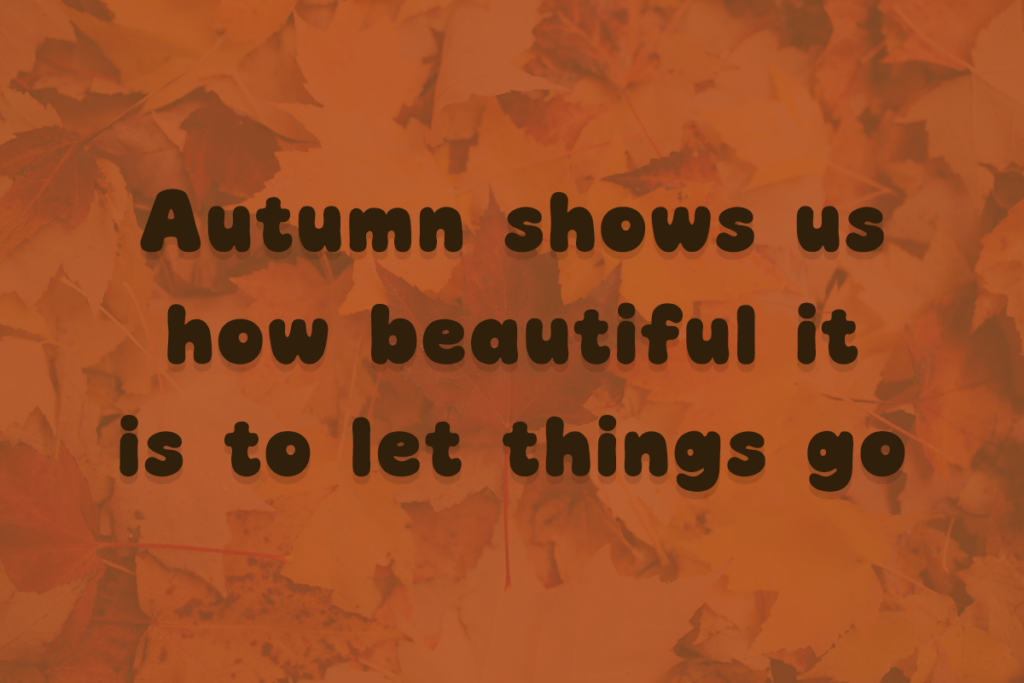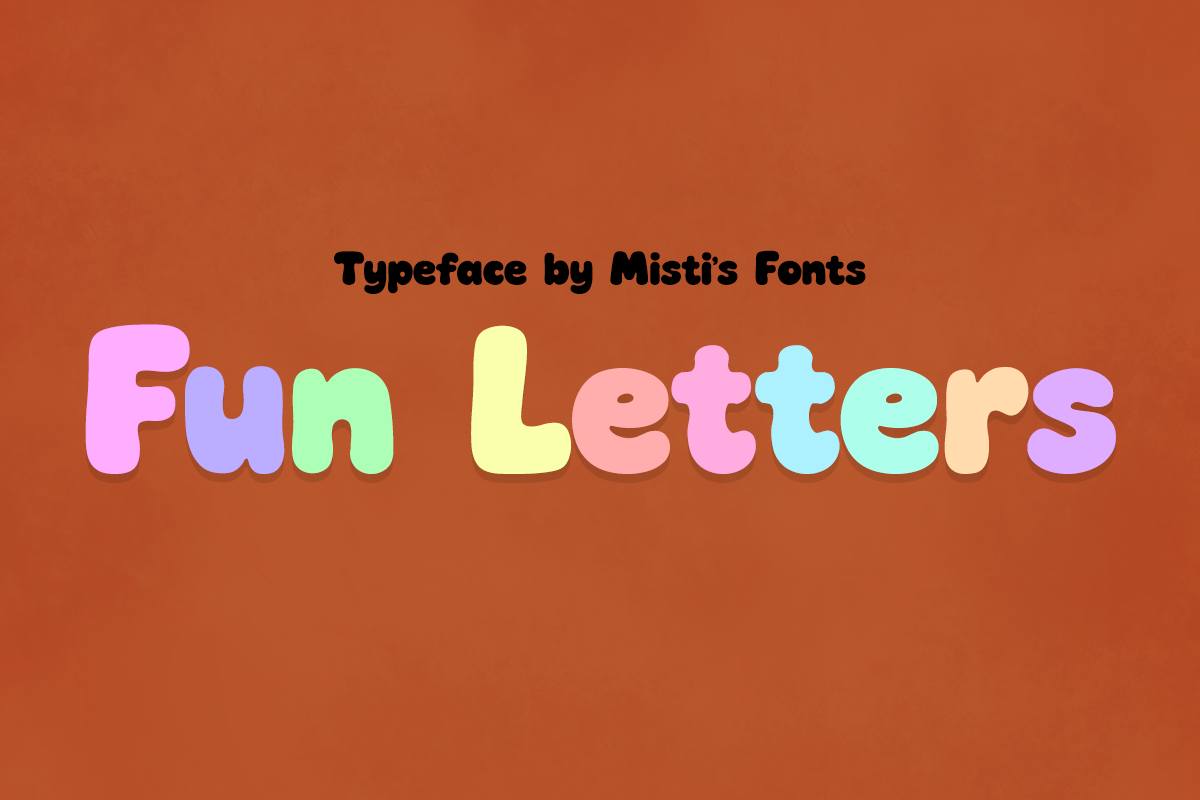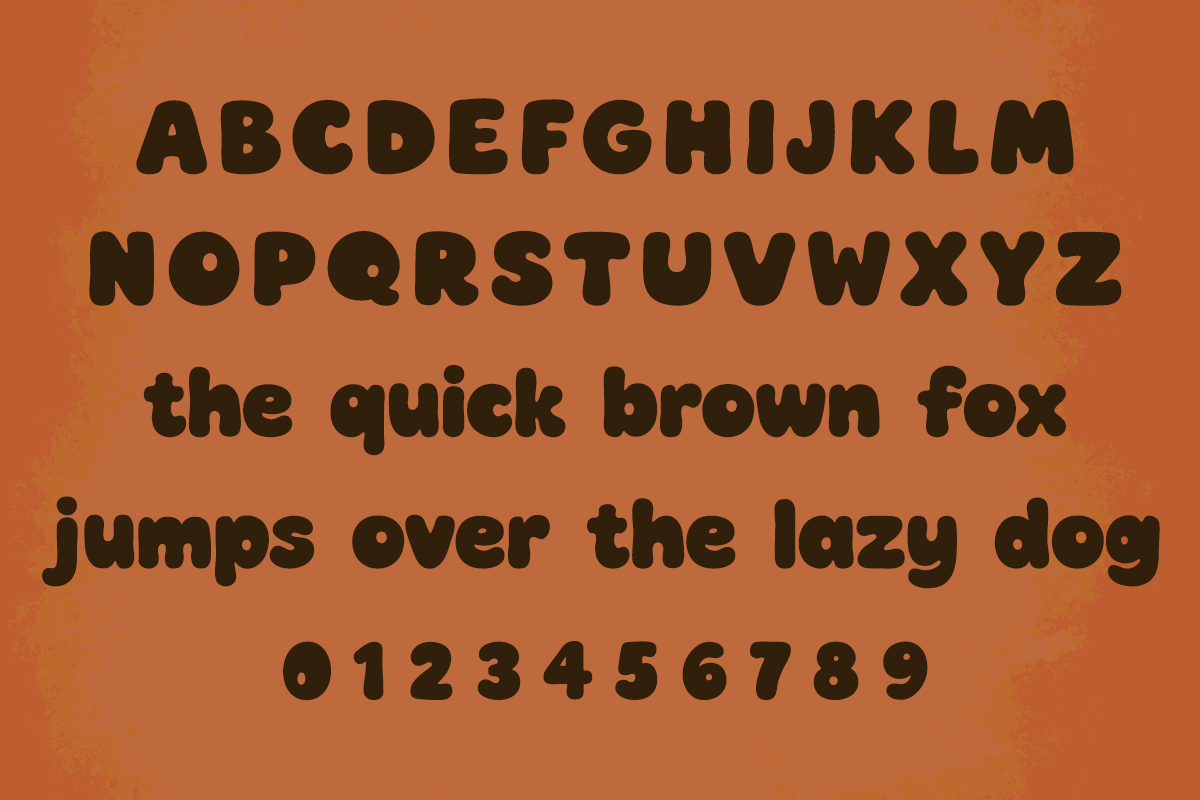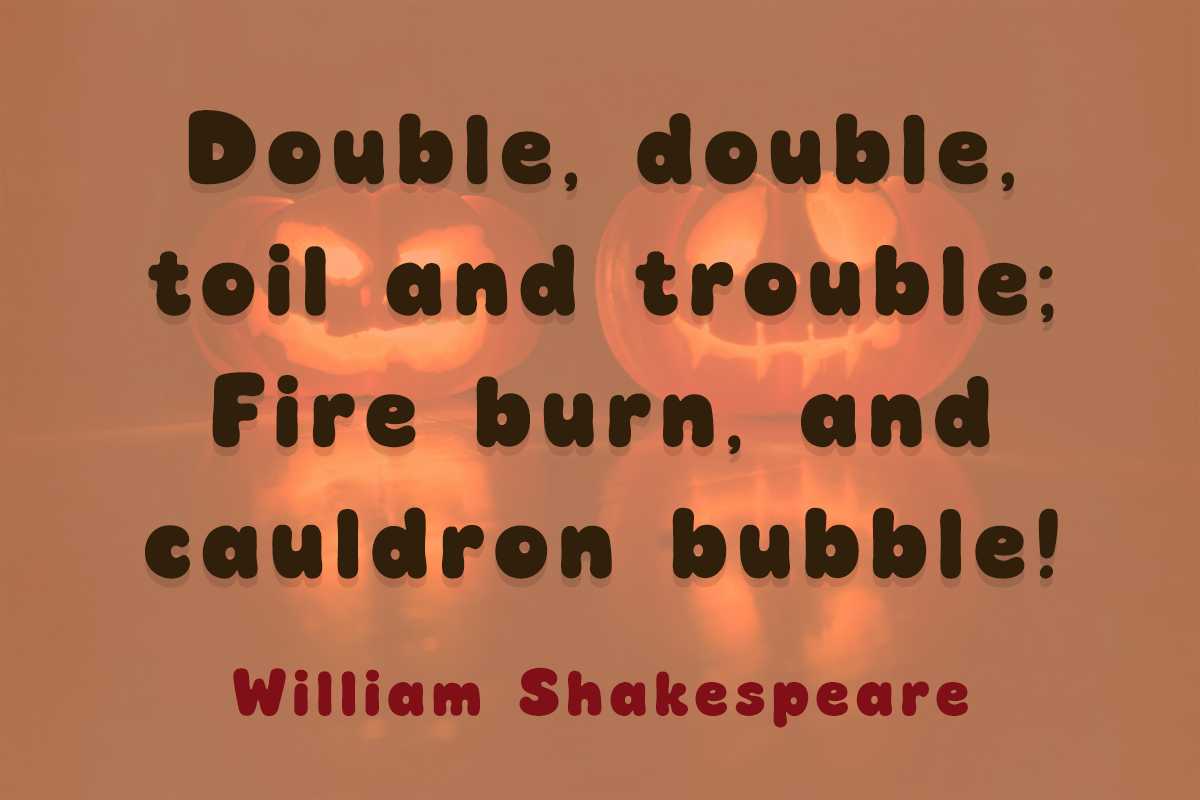
Fun Letters is a playful decorative display font bursting with color and personality. Its rounded, bubbly letterforms and smooth curves create a cheerful and approachable vibe, perfect for projects that need a splash of joy and energy.